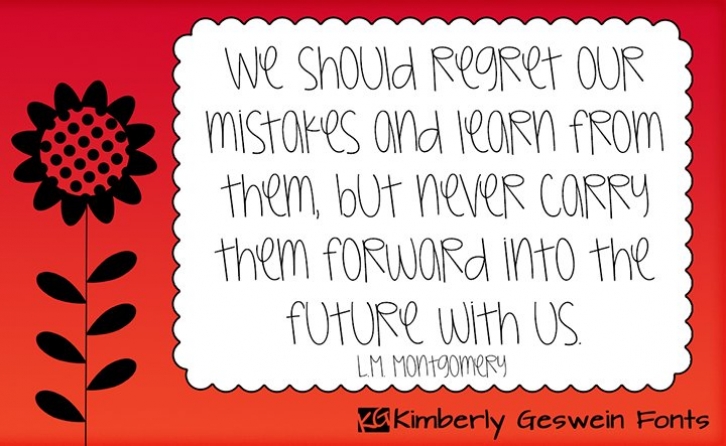
Teen girl handwriting-- uniquely styled.
This is a true type font with all letters and standard punctuation. It includes accented glyphs to cover most European languages- cedillas, acutes, graves, circumflexes, macrons, etc...